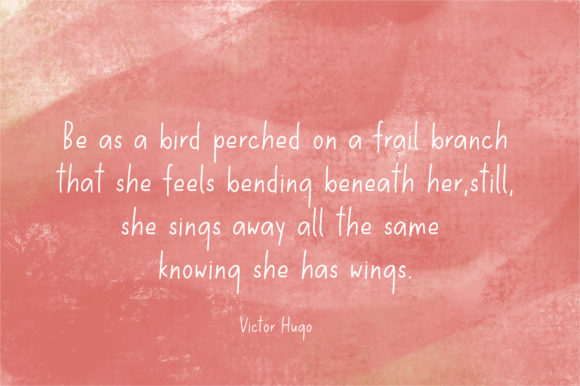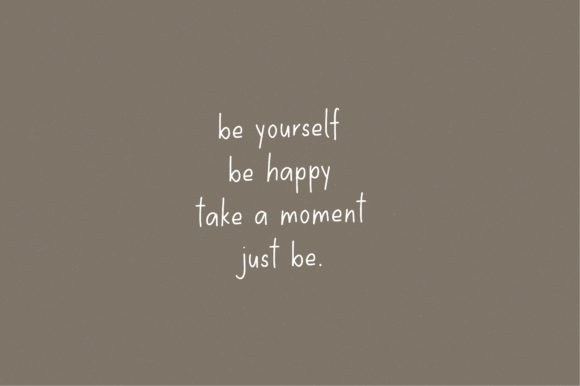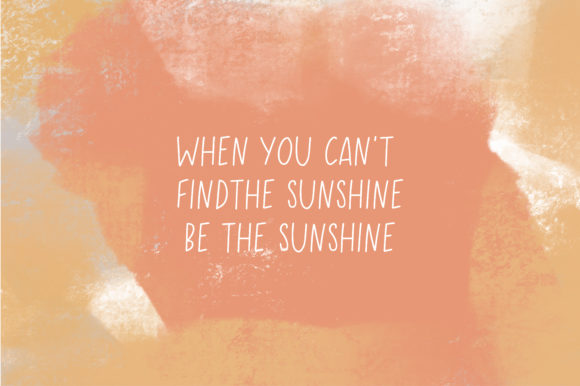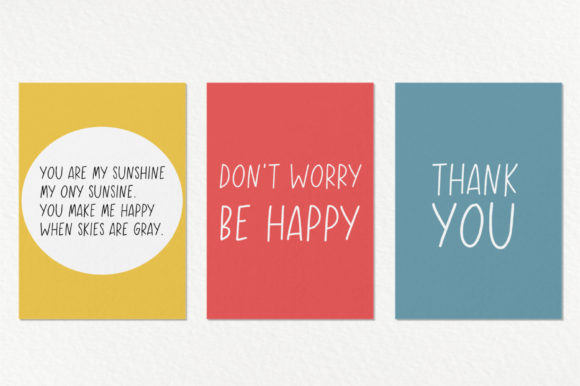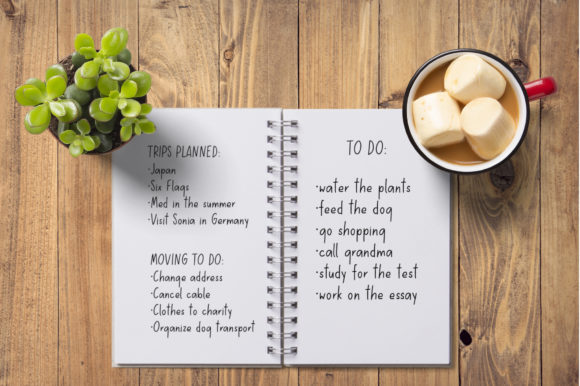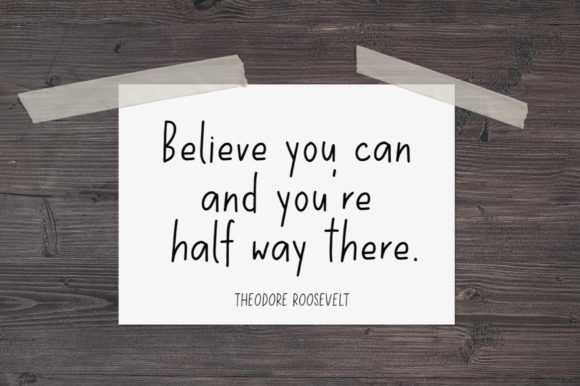
Introducing Goldfinch Font: The Sweet and Friendly Handwritten Font for Your Creative Projects
Are you a designer, crafter, or DIY enthusiast looking for a font that can add a personal touch to your projects? Look no further than Goldfinch Font, a sweet and friendly handwritten font that’s perfect for a wide range of designs. With its natural and unique style, Goldfinch Font is incredibly versatile and can be used in various creative projects, from digital designs to handmade crafts.
The Characteristics of Goldfinch Font
Goldfinch Font is a handwritten font that exudes warmth and friendliness. Its natural and unique style makes it stand out from other fonts, and its sweetness is sure to capture the hearts of your audience. The font’s characteristics include:
- Handwritten style: Goldfinch Font is a handwritten font that gives your designs a personal and human touch.
- Natural and unique: The font’s natural and unique style makes it perfect for designs that require a distinctive look.
- Sweet and friendly: Goldfinch Font is a sweet and friendly font that’s sure to evoke emotions and create a connection with your audience.
- Versatile: The font is incredibly versatile and can be used in various designs, from digital designs to handmade crafts.
The Benefits of Using Goldfinch Font
Using Goldfinch Font in your designs can bring numerous benefits, including:
- Adding a personal touch: Goldfinch Font’s handwritten style adds a personal touch to your designs, making them more relatable and engaging.
- Standing out from the crowd: The font’s unique style makes it stand out from other fonts, ensuring that your designs grab attention.
- Creating an emotional connection: Goldfinch Font’s sweet and friendly style is sure to evoke emotions and create a connection with your audience.
- Enhancing creativity: The font’s versatility and uniqueness can inspire creativity and help you think outside the box.
How to Use Goldfinch Font in Your Designs
Goldfinch Font is incredibly easy to use and can be incorporated into various designs, including:
- Digital designs: Use Goldfinch Font in your digital designs, such as social media graphics, blog posts, and website headers.
- Handmade crafts: Add a personal touch to your handmade crafts, such as cards, scrapbook pages, and DIY projects.
- Print designs: Use Goldfinch Font in your print designs, such as brochures, flyers, and posters.
Tips for Getting the Most Out of Goldfinch Font
To get the most out of Goldfinch Font, follow these tips:
- Experiment with different colors: Goldfinch Font looks great in various colors, so don’t be afraid to experiment and find the perfect color scheme for your design.
- Mix and match with other fonts: Combine Goldfinch Font with other fonts to create a unique and visually appealing design.
- Use it in combination with images: Goldfinch Font looks great in combination with images, so try using it to add a personal touch to your graphics.
Goldfinch Font is a sweet and friendly handwritten font that’s perfect for designers, crafters, and DIY enthusiasts. Its natural and unique style makes it incredibly versatile, and its sweetness is sure to capture the hearts of your audience. With its numerous benefits and ease of use, Goldfinch Font is a must-have font for any creative project. So why wait? Get creative with Goldfinch Font today and bring a personal touch to your designs!